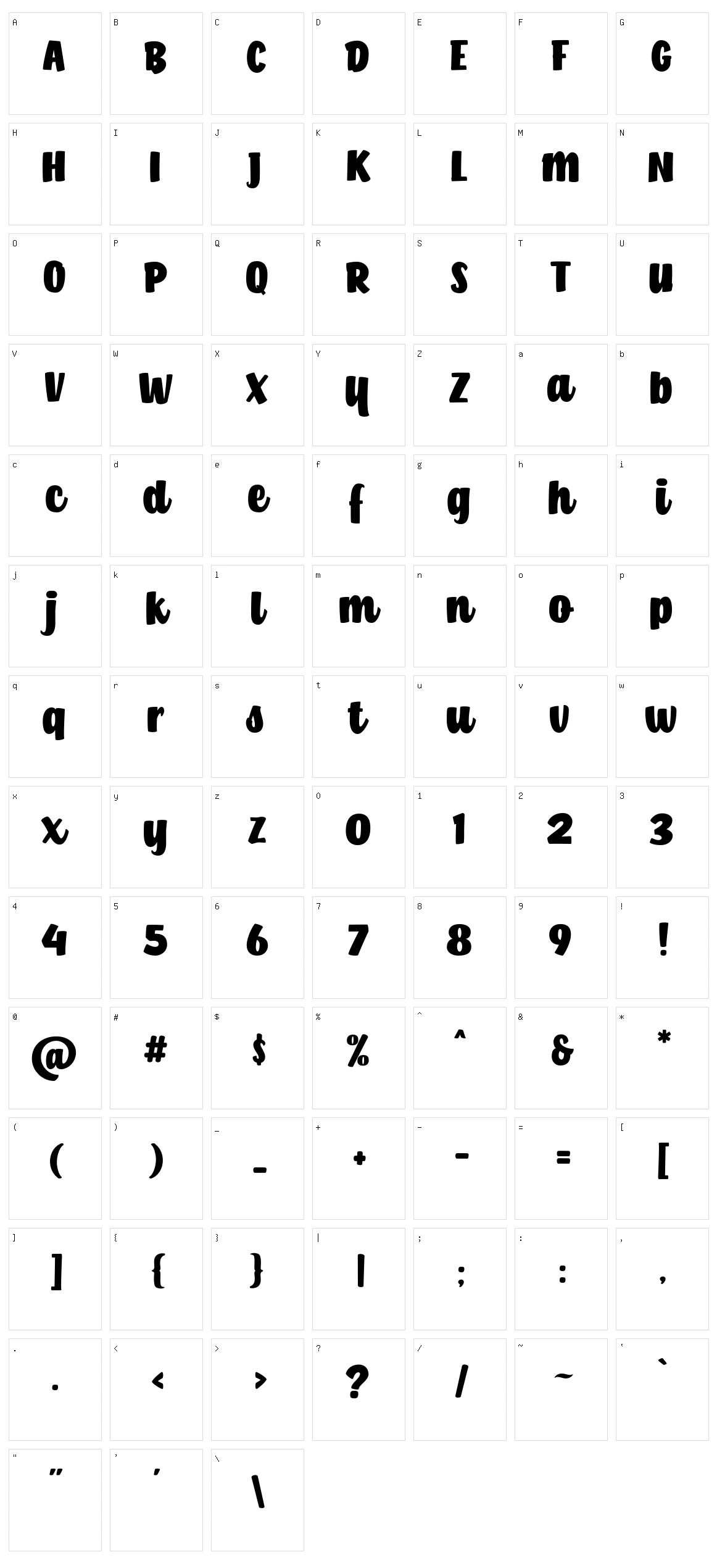
The free font Hamish is carefully designed by Get Studio, showcasing a thoughtful balance of creativity and usability and falls under the Script font style. When you download the ZIP file, it contains only 15.45 KB of font files, making it lightweight and quick to download. Please review the license details below to understand permitted usage and distribution rights. If license information is not available, we recommend using this font for personal projects only or contacting the author directly for commercial usage permissions.